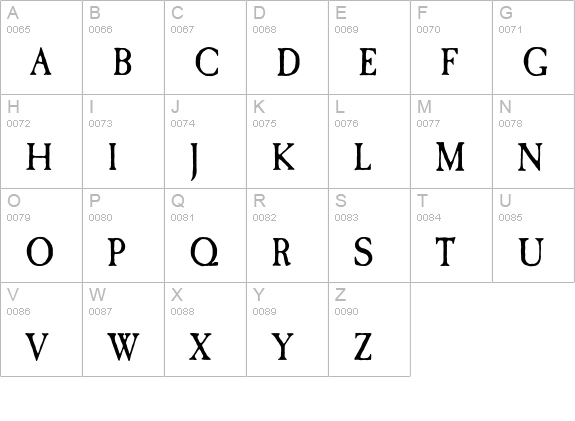
CaslonAntiqueEF Font Details
CaslonAntiqueEF is a timeless and elegant serif font that exudes sophistication and class. Its classic design features intricate details and graceful curves that make it perfect for adding a touch of refinement to any project. The sharp serifs and balanced proportions of CaslonAntiqueEF give it a sense of authority and tradition, making it an ideal choice for conveying a sense of heritage and prestige. What makes CaslonAntiqueEF even more appealing is that it is available for free download at FontsMarket.com. This means that you can easily access this exquisite font without any cost, allowing you to enhance your designs with a touch of sophistication without breaking the bank. With its versatility and timeless charm, CaslonAntiqueEF is sure to become a staple in your font collection, ready to elevate your projects with its classic beauty and understated elegance.